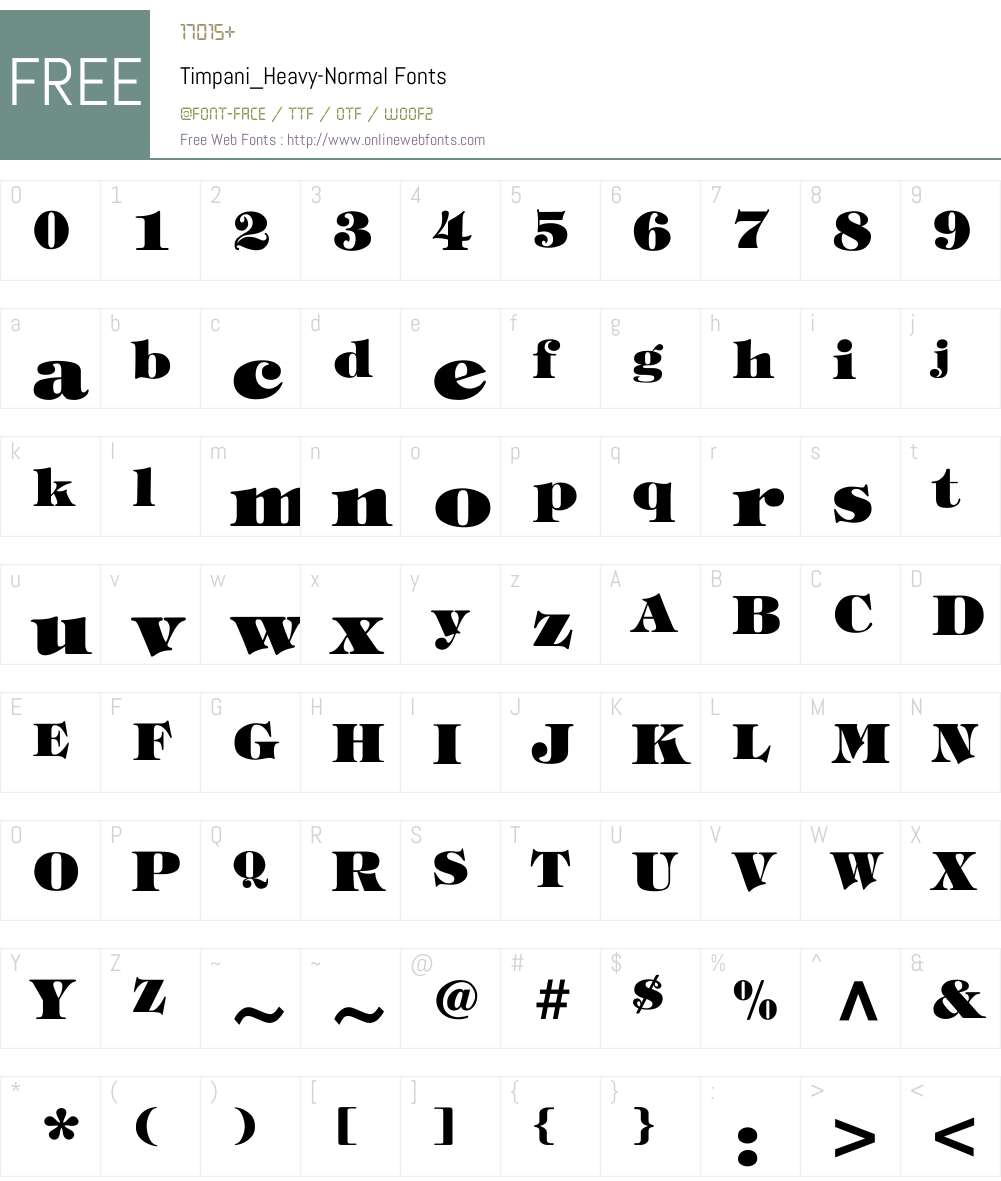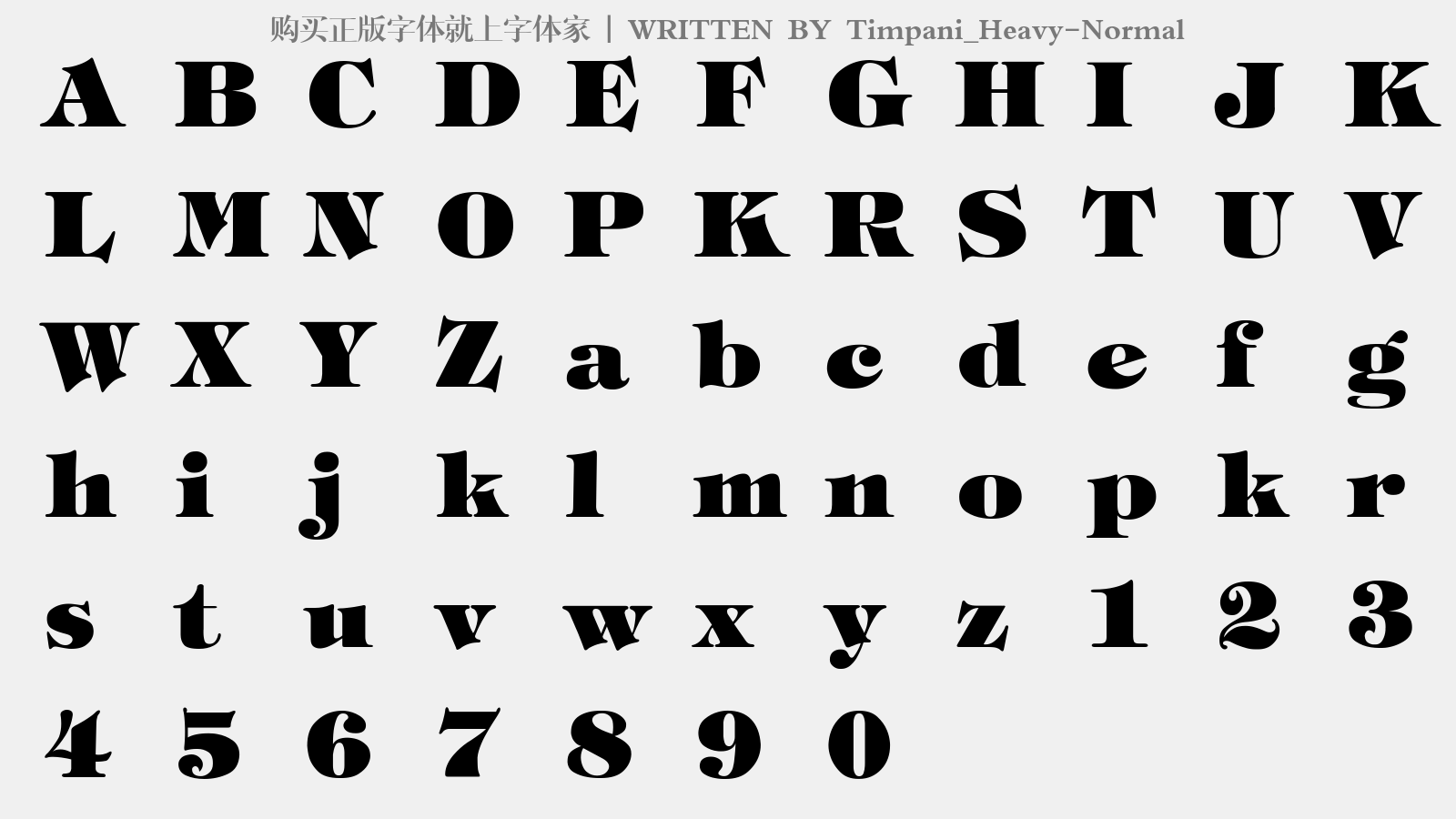
Timpani Normal Font . Normal), 247 characters in total. introducing timpani, a breathtakingly versatile font that effortlessly blends elegance with a touch of modernity. download timpani regular for free. timpani font family series mainly provide regular,normal,italic,bold and other font styles. Download 186,286 free fonts at ufonts.com. to learn more about the font and typography of the timpani heavy normal font, simply enter the text in the field. download timpani regulartruetype font.
Normal), 247 characters in total. timpani font family series mainly provide regular,normal,italic,bold and other font styles. to learn more about the font and typography of the timpani heavy normal font, simply enter the text in the field. introducing timpani, a breathtakingly versatile font that effortlessly blends elegance with a touch of modernity. Download 186,286 free fonts at ufonts.com. download timpani regulartruetype font. download timpani regular for free.
Timpani Normal Font Download 186,286 free fonts at ufonts.com. to learn more about the font and typography of the timpani heavy normal font, simply enter the text in the field. Download 186,286 free fonts at ufonts.com. timpani font family series mainly provide regular,normal,italic,bold and other font styles. download timpani regulartruetype font. download timpani regular for free. introducing timpani, a breathtakingly versatile font that effortlessly blends elegance with a touch of modernity. Normal), 247 characters in total.
Timpani_HeavyNormal Converted from C1DTIMPANIN.TF1 by ALLTYPE Fonts Timpani Normal Font download timpani regulartruetype font. download timpani regular for free. to learn more about the font and typography of the timpani heavy normal font, simply enter the text in the field. Download 186,286 free fonts at ufonts.com. introducing timpani, a breathtakingly versatile font that effortlessly blends elegance with a touch of modernity. timpani font family series. Timpani Normal Font.
TimpaniBold Ex Font Download For Free, View Sample Text, Rating And Timpani Normal Font Download 186,286 free fonts at ufonts.com. Normal), 247 characters in total. introducing timpani, a breathtakingly versatile font that effortlessly blends elegance with a touch of modernity. timpani font family series mainly provide regular,normal,italic,bold and other font styles. download timpani regulartruetype font. to learn more about the font and typography of the timpani heavy normal font,. Timpani Normal Font.
Timpani Font FontYukle Timpani Normal Font to learn more about the font and typography of the timpani heavy normal font, simply enter the text in the field. introducing timpani, a breathtakingly versatile font that effortlessly blends elegance with a touch of modernity. download timpani regular for free. download timpani regulartruetype font. Normal), 247 characters in total. Download 186,286 free fonts at ufonts.com.. Timpani Normal Font.
Download free TimpaniBoldItalic Regular font Timpani Normal Font to learn more about the font and typography of the timpani heavy normal font, simply enter the text in the field. timpani font family series mainly provide regular,normal,italic,bold and other font styles. introducing timpani, a breathtakingly versatile font that effortlessly blends elegance with a touch of modernity. download timpani regulartruetype font. Download 186,286 free fonts. Timpani Normal Font.
Timpani_HeavyNormal Regular truetype font Timpani Normal Font to learn more about the font and typography of the timpani heavy normal font, simply enter the text in the field. timpani font family series mainly provide regular,normal,italic,bold and other font styles. download timpani regular for free. download timpani regulartruetype font. Normal), 247 characters in total. introducing timpani, a breathtakingly versatile font that effortlessly. Timpani Normal Font.
Ruptur Membran Timpani Normal Font to learn more about the font and typography of the timpani heavy normal font, simply enter the text in the field. download timpani regulartruetype font. Download 186,286 free fonts at ufonts.com. timpani font family series mainly provide regular,normal,italic,bold and other font styles. introducing timpani, a breathtakingly versatile font that effortlessly blends elegance with a touch. Timpani Normal Font.
Timpani_HeavyNormal免费字体下载 英文字体免费下载尽在字体家 Timpani Normal Font download timpani regulartruetype font. Normal), 247 characters in total. download timpani regular for free. to learn more about the font and typography of the timpani heavy normal font, simply enter the text in the field. Download 186,286 free fonts at ufonts.com. introducing timpani, a breathtakingly versatile font that effortlessly blends elegance with a touch of modernity.. Timpani Normal Font.
Timpani_HeavyNormal Regular truetype font Timpani Normal Font Normal), 247 characters in total. to learn more about the font and typography of the timpani heavy normal font, simply enter the text in the field. timpani font family series mainly provide regular,normal,italic,bold and other font styles. introducing timpani, a breathtakingly versatile font that effortlessly blends elegance with a touch of modernity. download timpani regulartruetype. Timpani Normal Font.